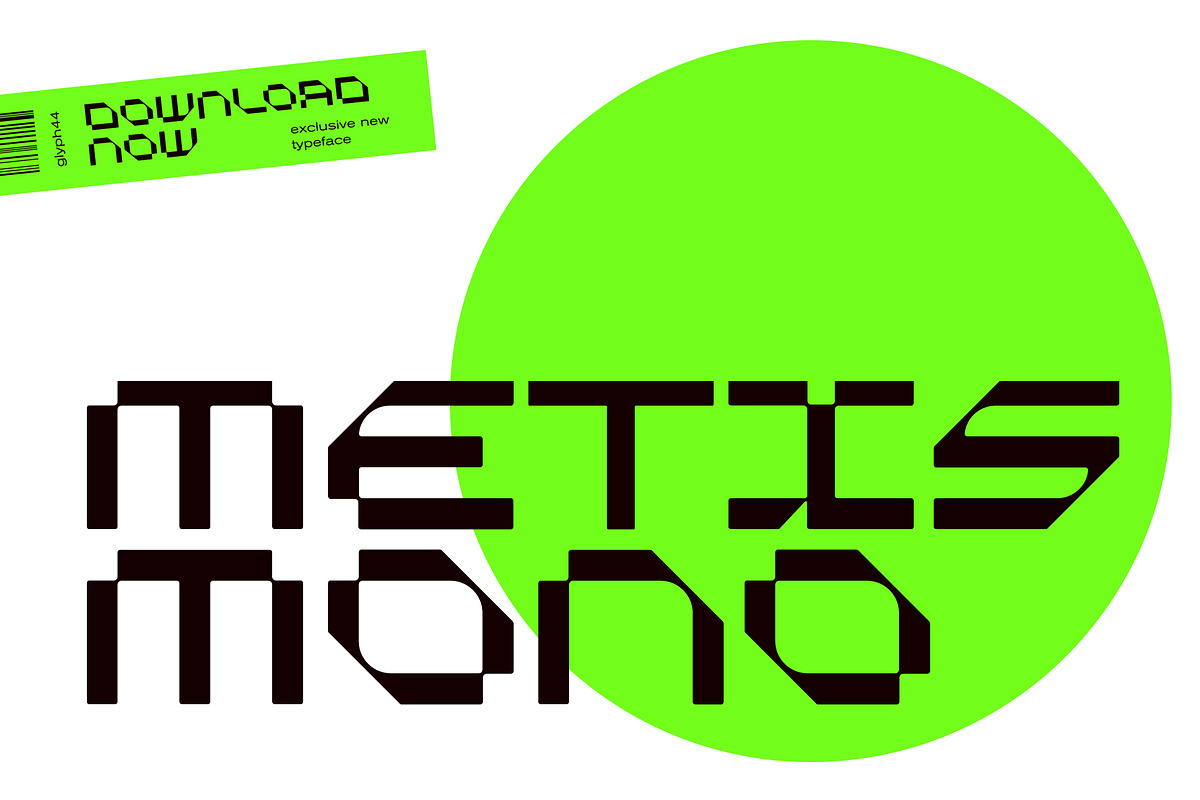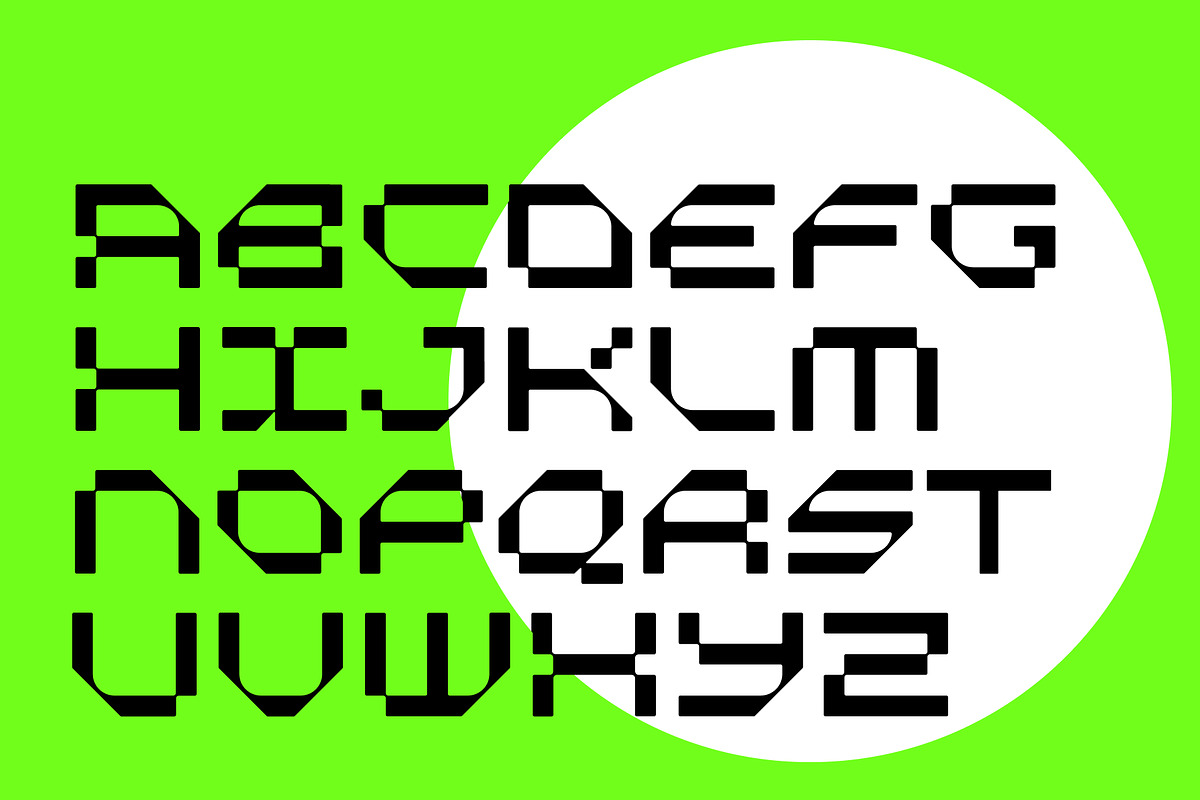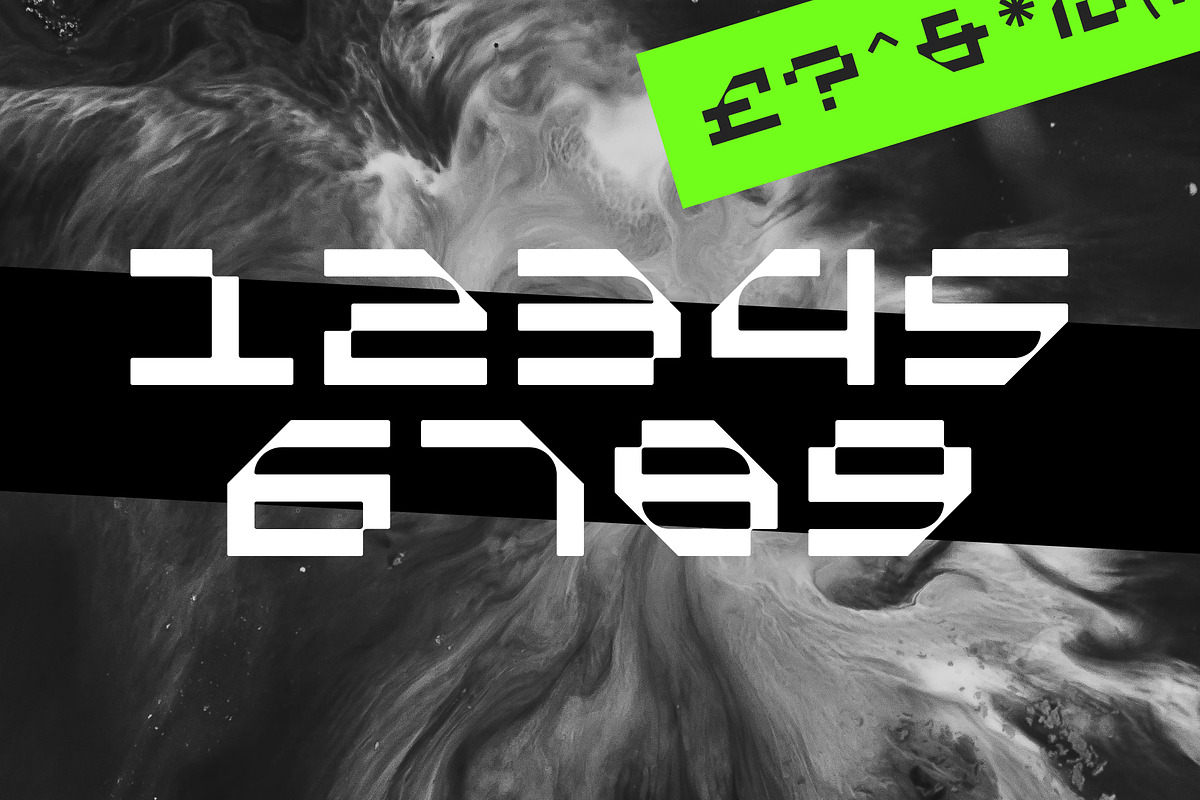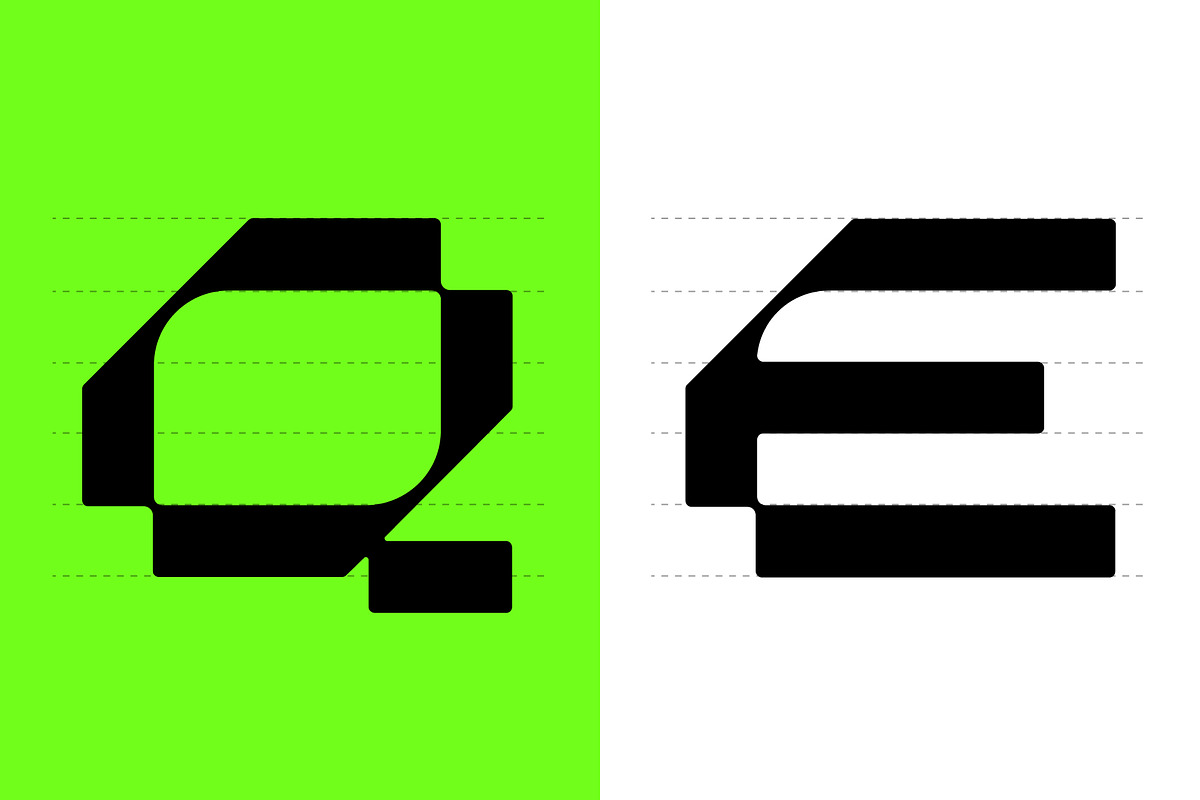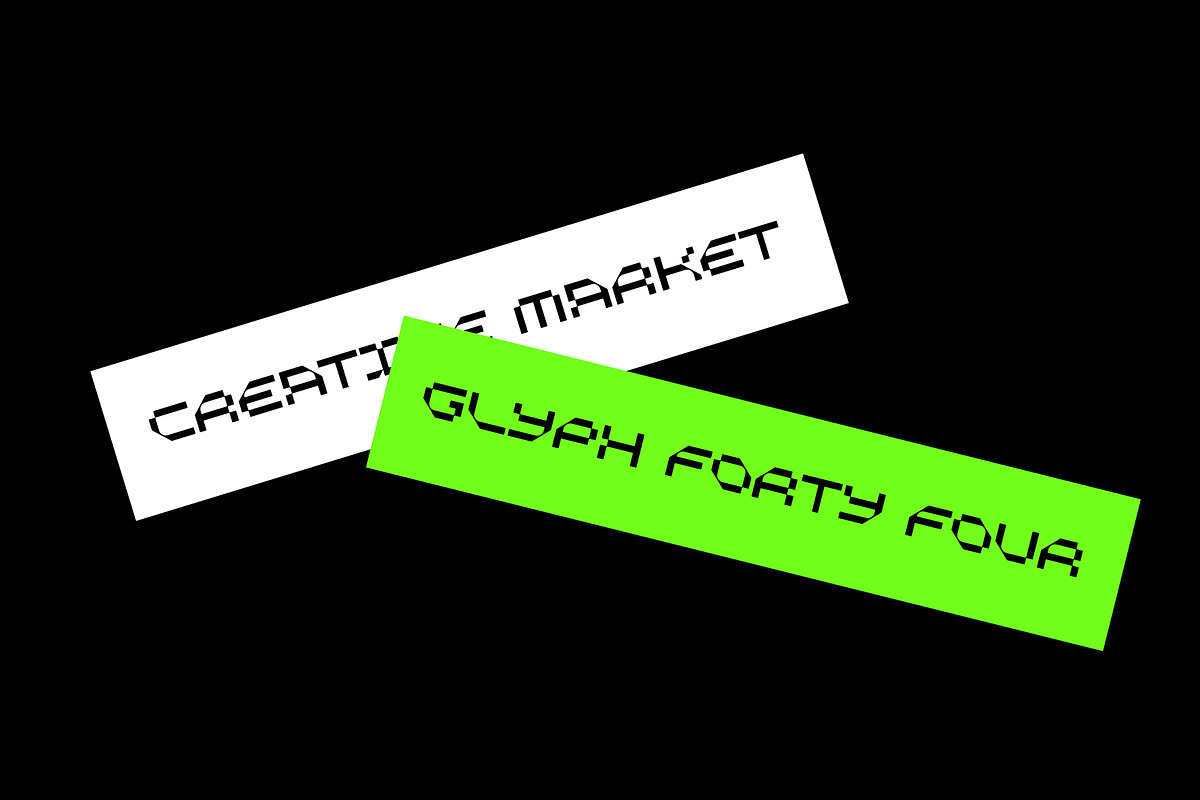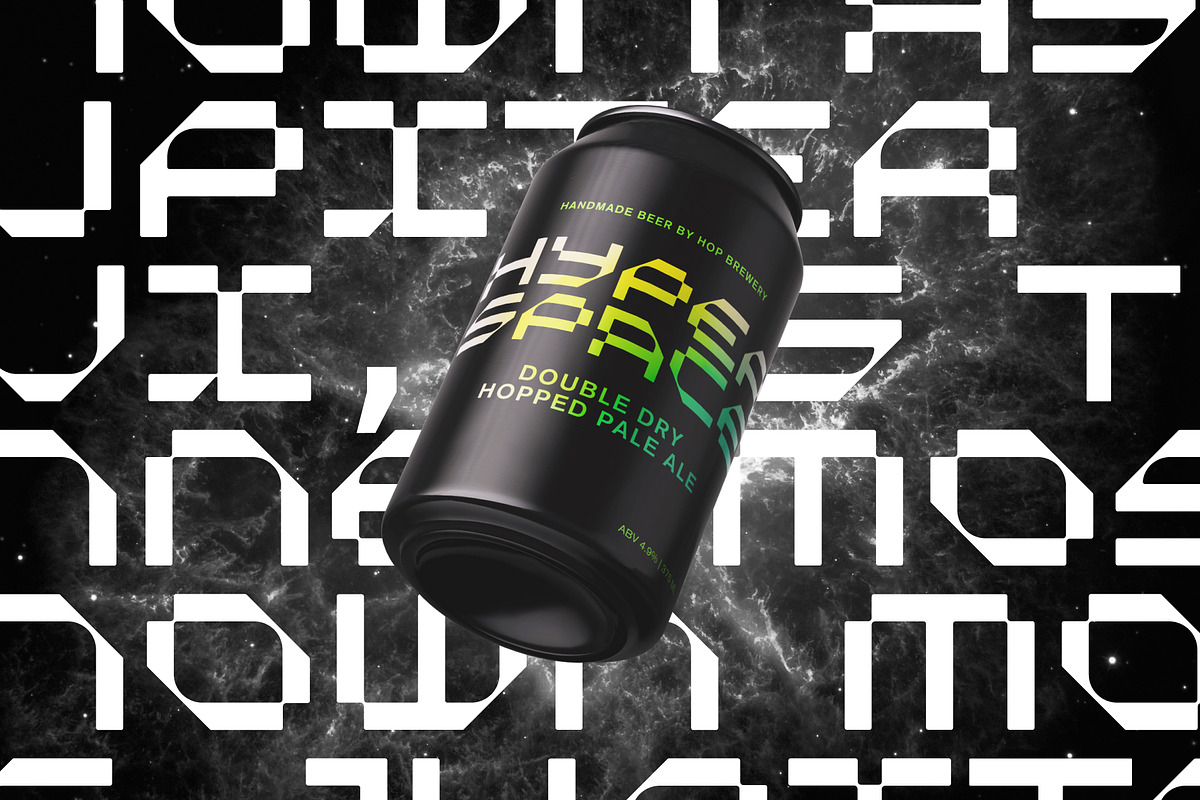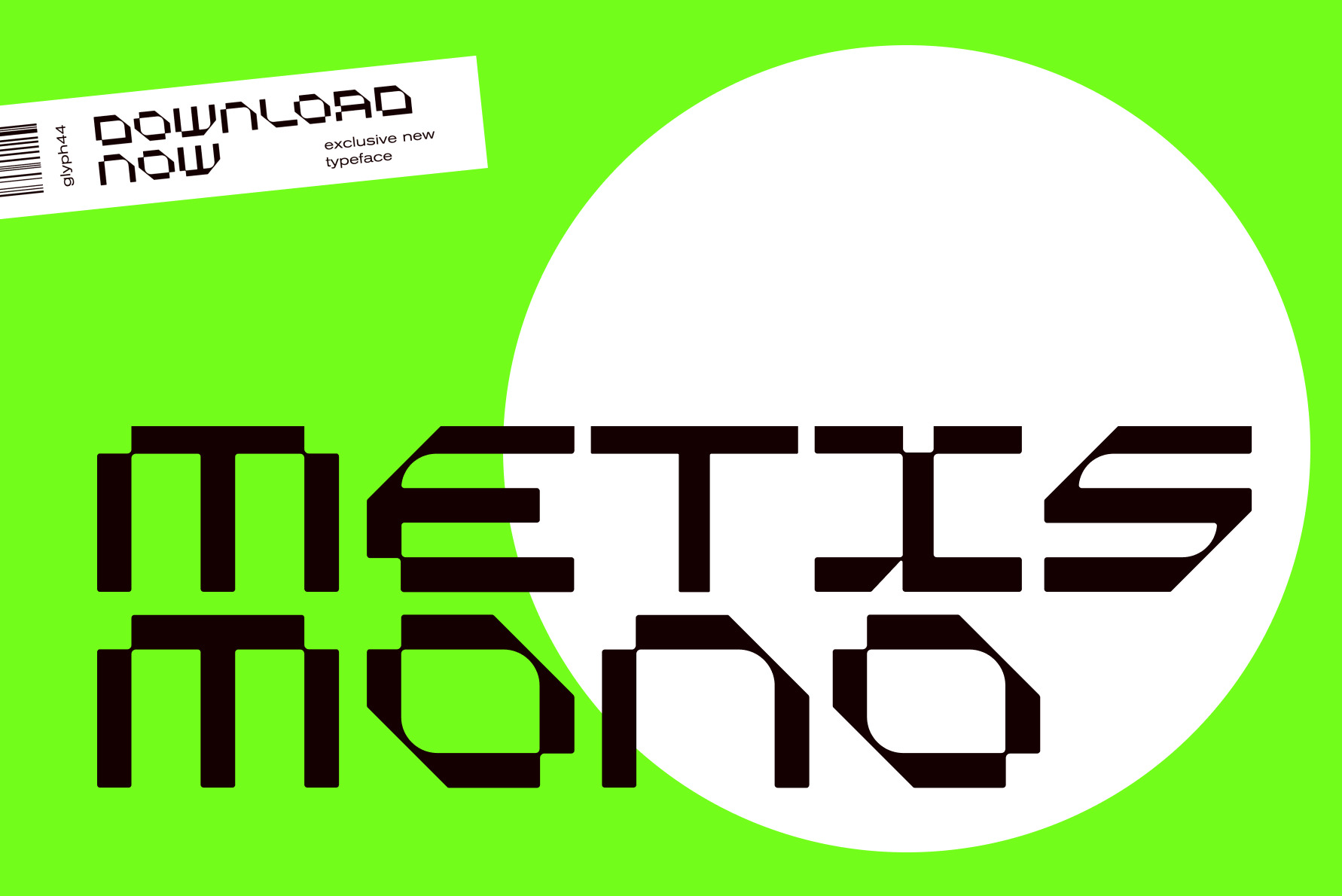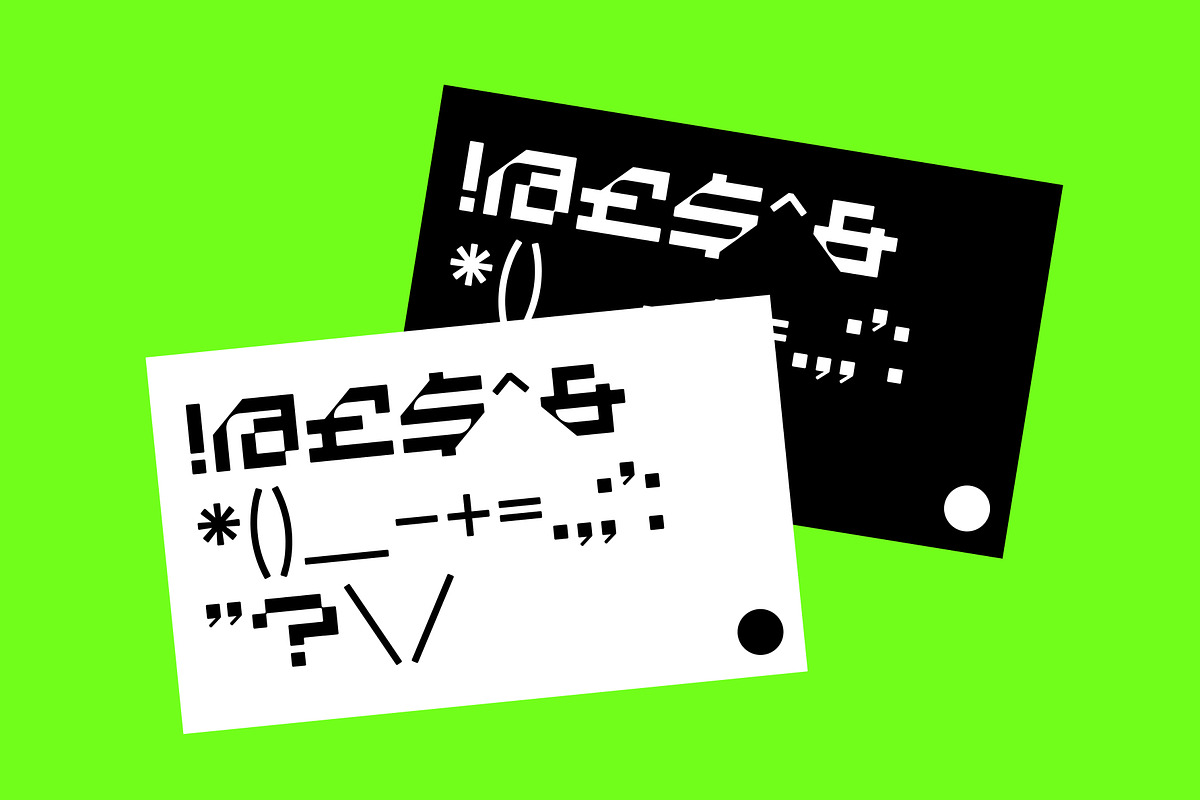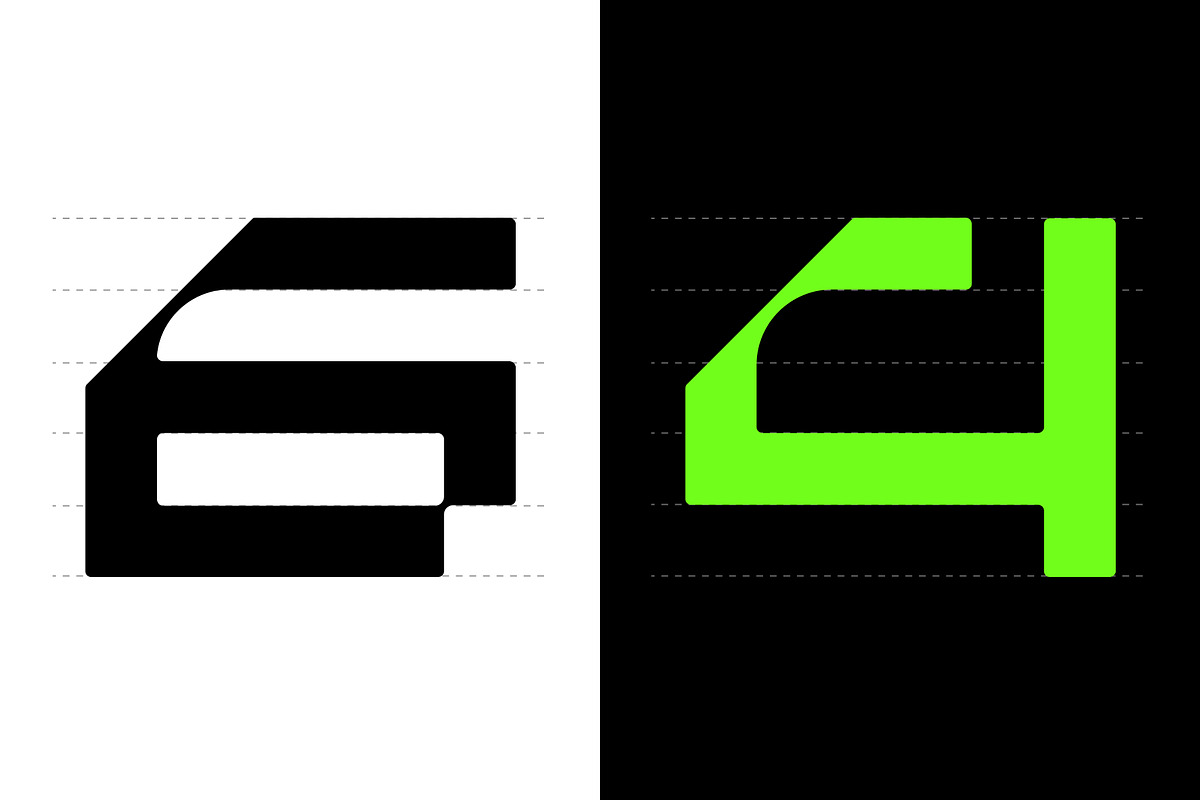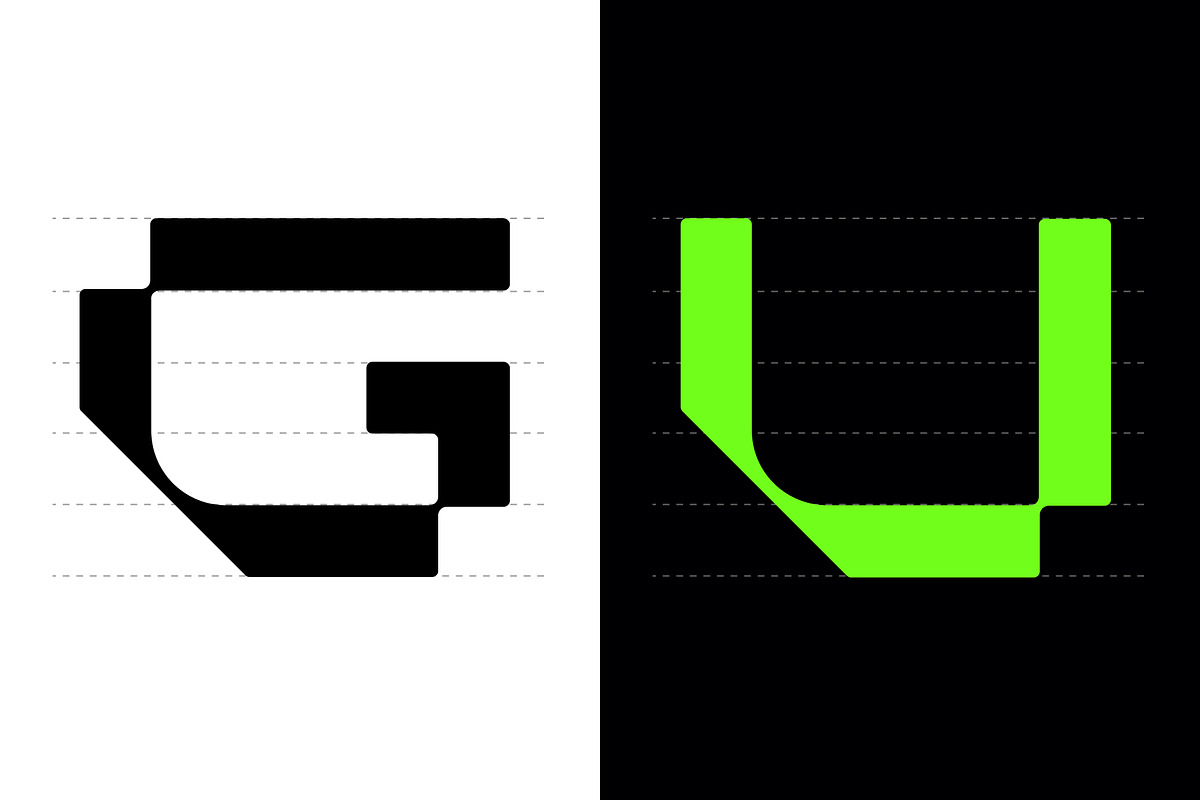
Metis Mono | Space Modern Font
METIS MONO - A Modern Space Typeface
METIS MONO is a modern display font with a futuristic design style using forms common in sci-fi thrillers. Perfect for making strong emphasis in logo design and identity.
This mono display font was inspired by contemporary shapes and calls to recent NASA and Space X missions. It is most suited as a decorative display font for editorials, logos, web or packaging design. It has an uppercase display and includes numerals & glyphs.
- Uppercase Display